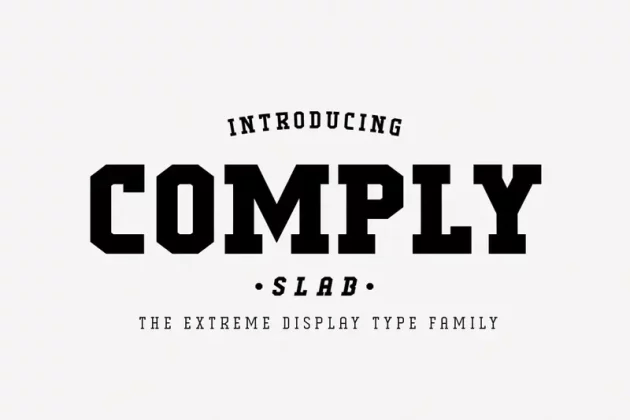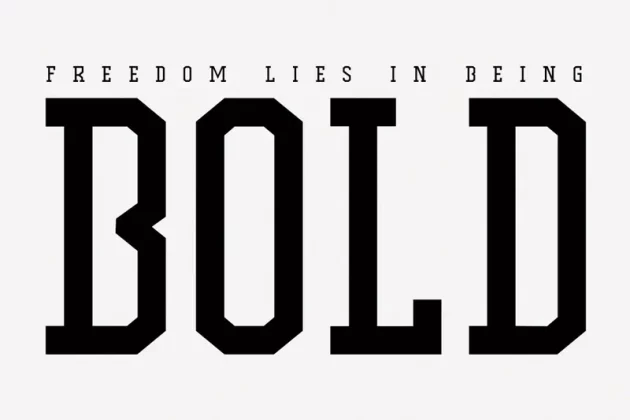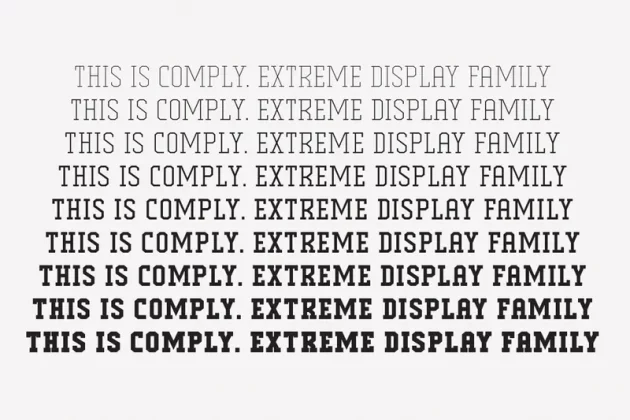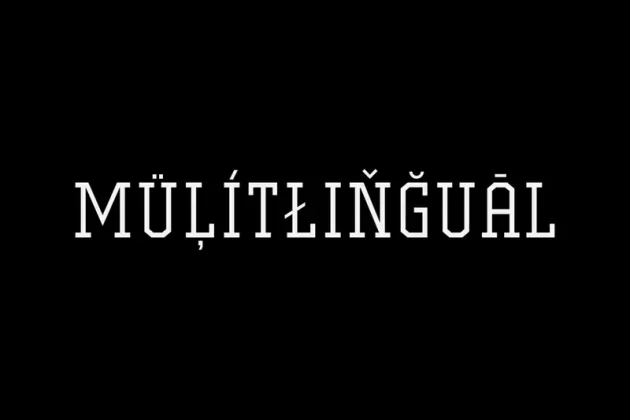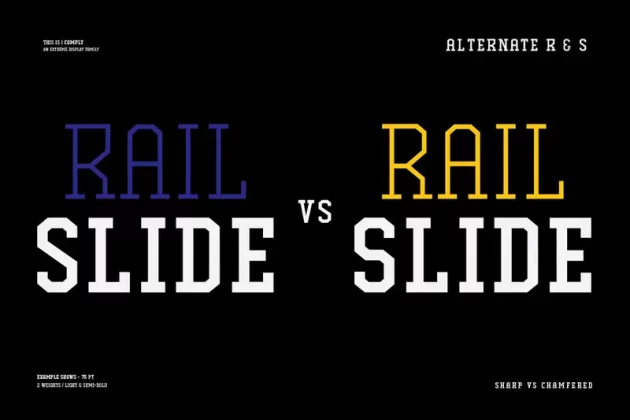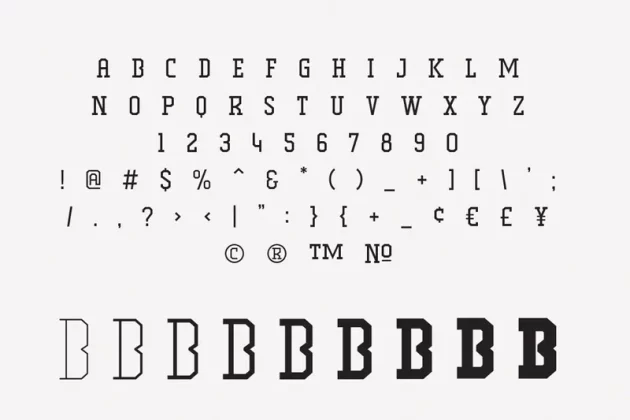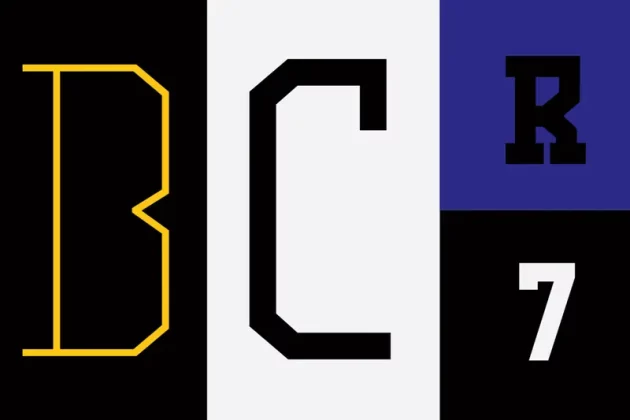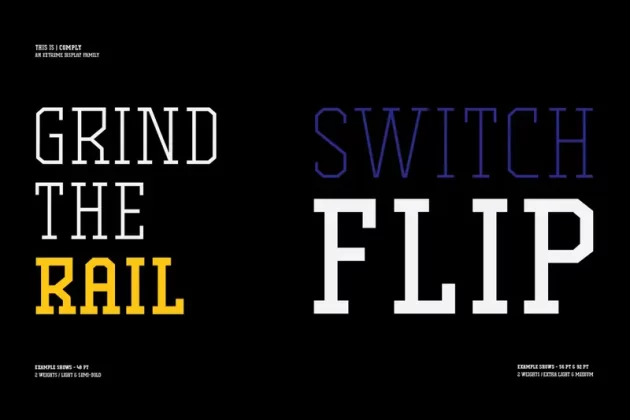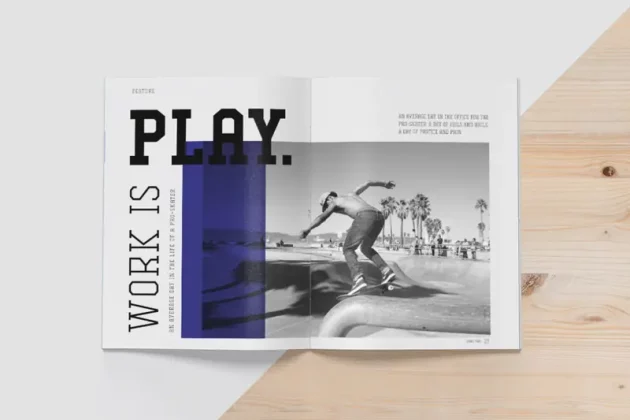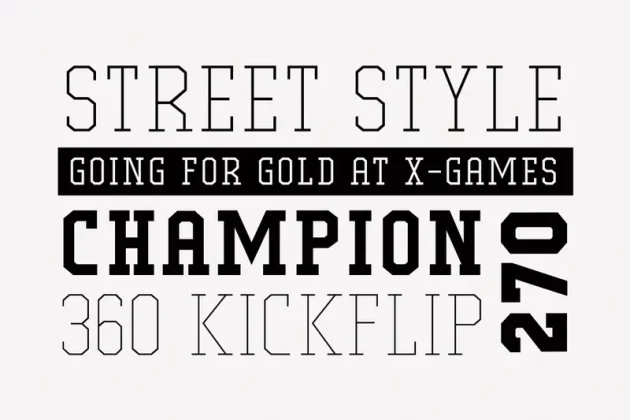
Comply Slab Font
Comply Slab is inspired by action and extreme sports, Comply gets it’s name from the well known skate trick the “No Comply”. This type family doesn’t mess about! With 9 weights from thin to black, Comply Slab will give you some great options to use. This font family will “kill it” in both print and digital, in headlines for editorial, posters, banners, websites, apparel, packaging, logos or magazines just to name a few.
If you want to make a statement that gets the message across in a slick way with some cool looking glyphs Comply Slab is the font! There is an alternate R and S so you can choose to go with the cool default sharp glyphs or swap them for a more traditional chamfered corner version. Each of the 9 weights has an italic version to add even more action.